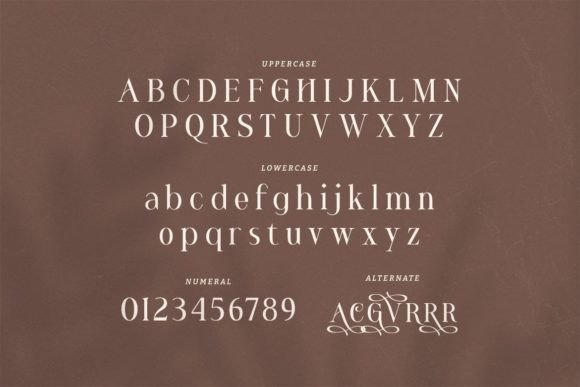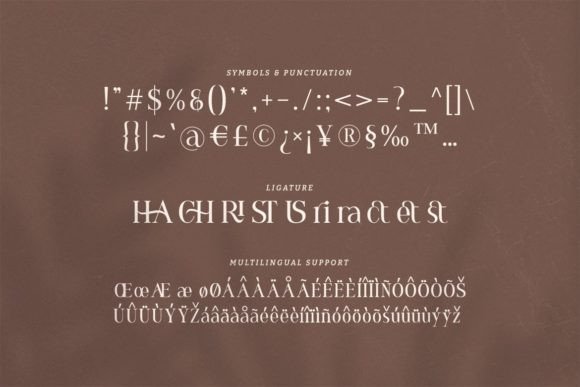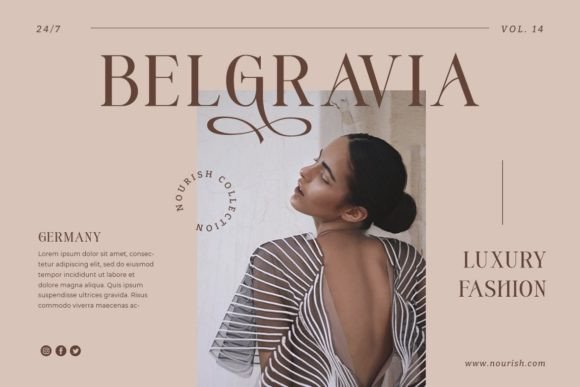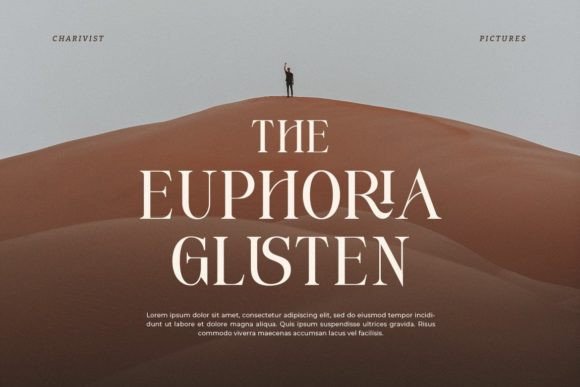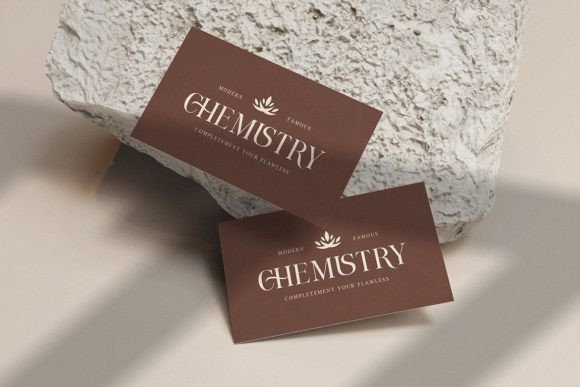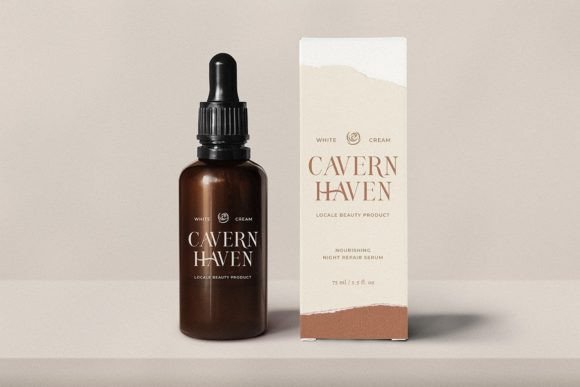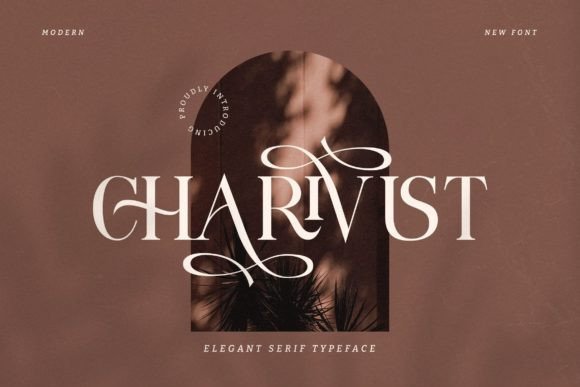
Introducing Charivist Font: Elevate Your Designs with Elegance and Versatility
In the world of typography, a font can make or break a design. For designers and crafters seeking to add a touch of sophistication and elegance to their projects, Charivist Font is an exceptional choice. This beautifully crafted serif font seamlessly blends traditional influences with a contemporary aesthetic, offering a versatile and refined look that’s perfect for a wide range of applications.
The Essence of Charivist Font
Charivist is an elegant serif font that exudes refinement and poise. Its design is rooted in traditional typography, yet it has been carefully crafted to meet the demands of modern design. With Charivist, you can achieve an exquisite, yet subtle look that elevates your projects and sets them apart. Whether you’re working on a luxury brand identity, a high-end product packaging, or a sophisticated editorial design, Charivist Font is the perfect companion.
Unparalleled Versatility
One of the standout features of Charivist Font is its incredible versatility. Its elegant design makes it easily matchable to an incredibly large set of projects, from elegant wedding stationery to corporate branding, and from fashion editorials to packaging design. The font’s subtle yet distinctive character ensures that it complements a wide range of design styles, allowing you to experiment and push the boundaries of your creativity.
Charivist Font is PUA (Private Use Area) encoded, which means that accessing its extensive range of glyphs and ligatures is incredibly easy. PUA encoding allows designers to access these additional characters with ease, making it simple to add intricate details and unique flourishes to their designs. With Charivist, you can unlock a world of creative possibilities and take your designs to the next level.
Key Features of Charivist Font
- Elegant Serif Design: Charivist boasts a beautifully crafted serif design that blends traditional influences with a modern aesthetic.
- Versatility: The font is easily matchable to a wide range of projects, making it a versatile addition to any designer’s toolkit.
- PUA Encoding: Effortlessly access a vast range of glyphs and ligatures to add intricate details to your designs.
- Exquisite and Subtle: Achieve a refined, sophisticated look that’s perfect for luxury brands, high-end products, and editorial designs.
Applications for Charivist Font
Charivist Font’s versatility makes it suitable for a wide range of applications, including:
- Luxury Brand Identity: Create sophisticated logos, business cards, and letterheads that exude elegance and refinement.
- Editorial Design: Elevate your editorial designs, such as magazines, newspapers, and books, with Charivist’s elegant and readable serif design.
- Packaging Design: Add a touch of luxury to your product packaging with Charivist’s refined and sophisticated aesthetic.
- Wedding Stationery: Create beautiful, elegant wedding stationery, including invitations, menus, and place cards.
Charivist Font is an exceptional addition to any designer’s toolkit. Its elegant serif design, versatility, and PUA encoding make it the perfect choice for designers and crafters seeking to add a touch of sophistication and elegance to their projects. Whether you’re working on a luxury brand identity, editorial design, packaging, or wedding stationery, Charivist Font is sure to elevate your designs and help you achieve a refined, exquisite look.